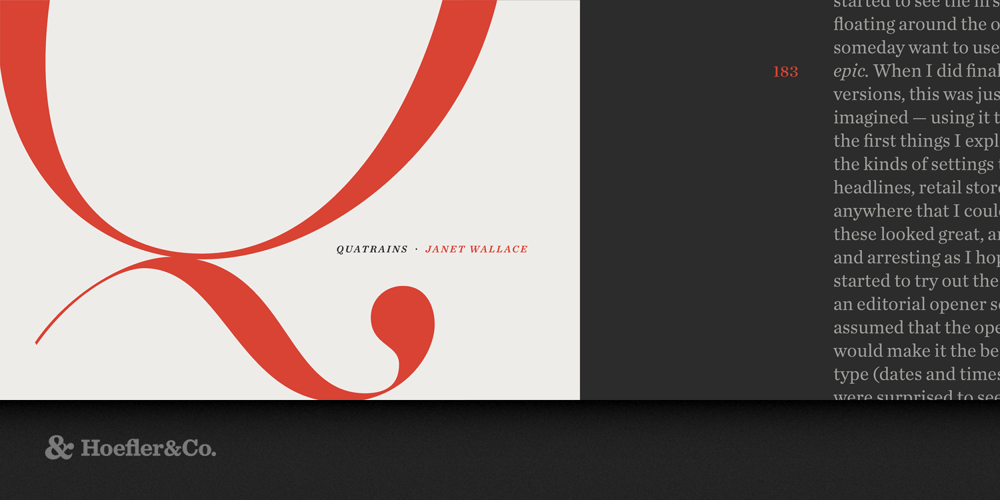
Chronicle Deck Font Family was designed by Jonathan Hoefler and published by Hoefler & Co.. Chronicle Deck contains 32 styles and family package options. A vigorous hybrid of time-honored forms and contemporary design strategies, Chronicle Display (a suite of headline faces) and Chronicle Text (a suite of text faces) bring strength and utility to the classic serif.